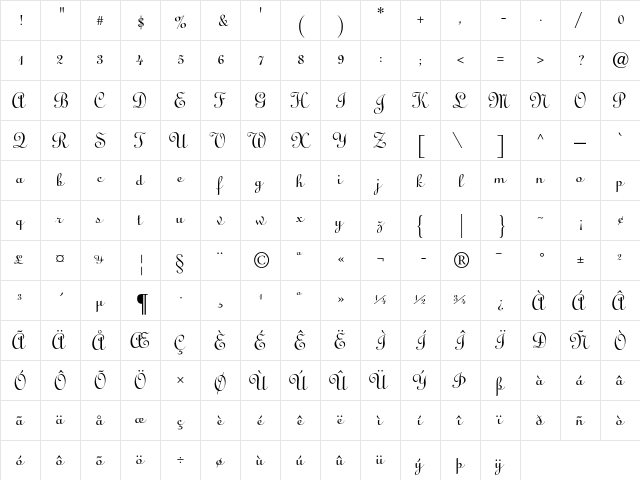
Linoscript Medium Font Preview
Linoscript Medium
Linoscript Medium Font Details
Design Context for Linoscript Typeface
Linoscript flows with the natural rhythm of handwritten lettering, making it ideal for designs that call for warmth and personal expression.
Font Pairing: Combine Linoscript with a simple geometric sans for maximum contrast — the tension between flowing curves and clean structure is a classic typographic pairing.
Pro Tip: Use Linoscript for short runs of text — names, titles, or taglines. Extended body copy in script faces tires the eye quickly.